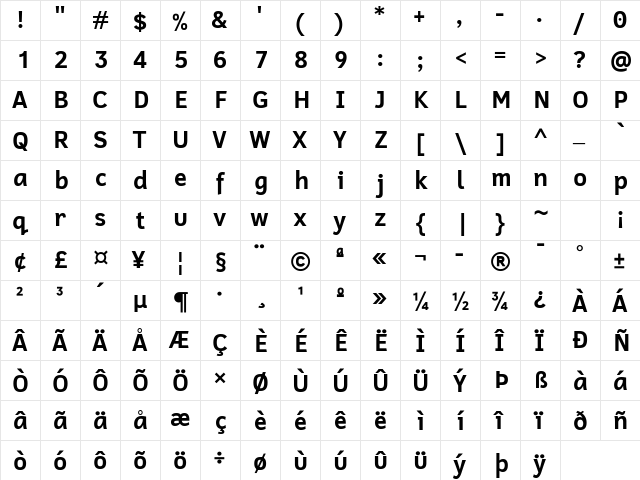
Cadman Bold
| Foundry | High-Logic / Made with FontCreator |
| Designer | Paul James MIller |
Design Context for Cadman Typeface
Cadman offers clean, dependable letterforms without strong stylistic allegiance, making it a practical choice for designers who need flexibility. Its bold stroke weight gives it real presence on the page.
Pro Tip: Use Cadman in both headline and body roles to test its range before committing to a single application.